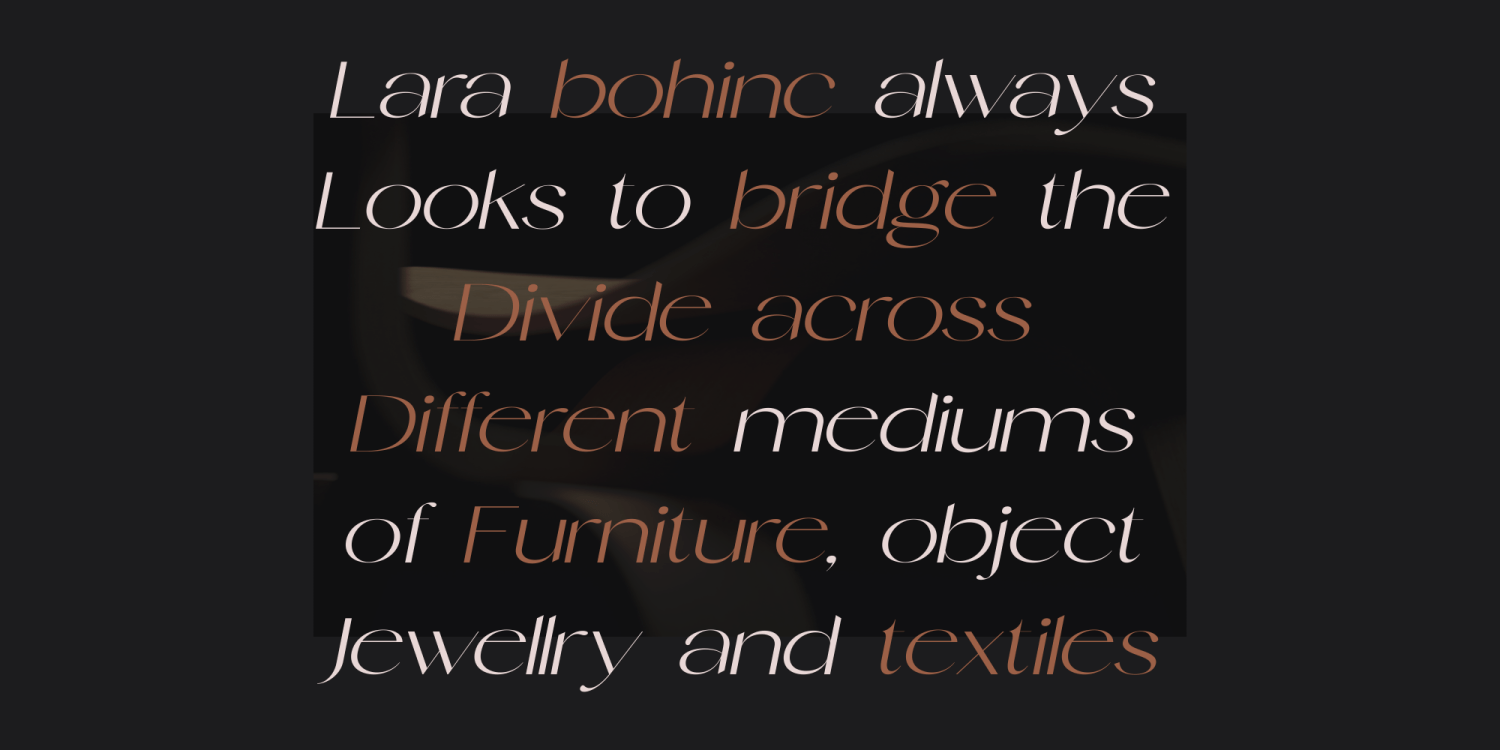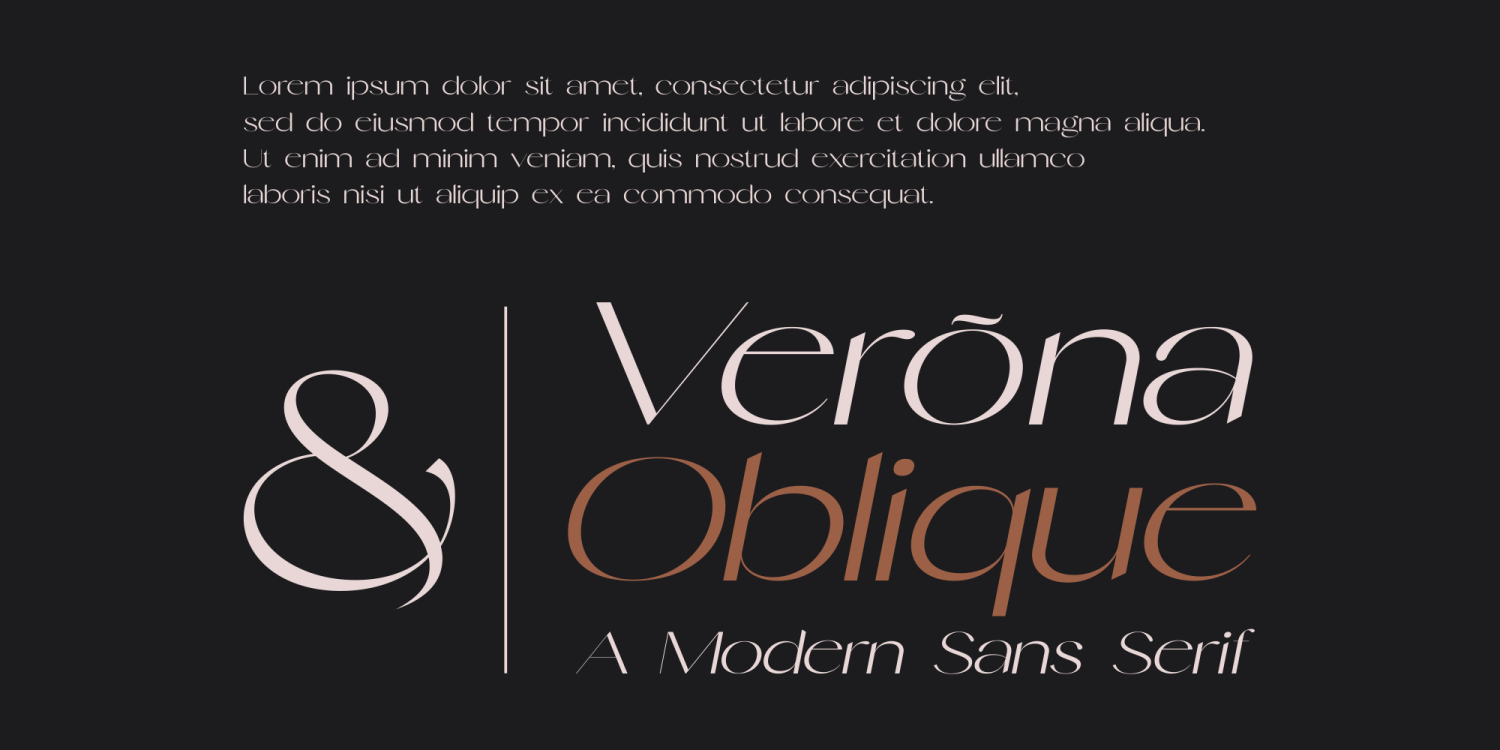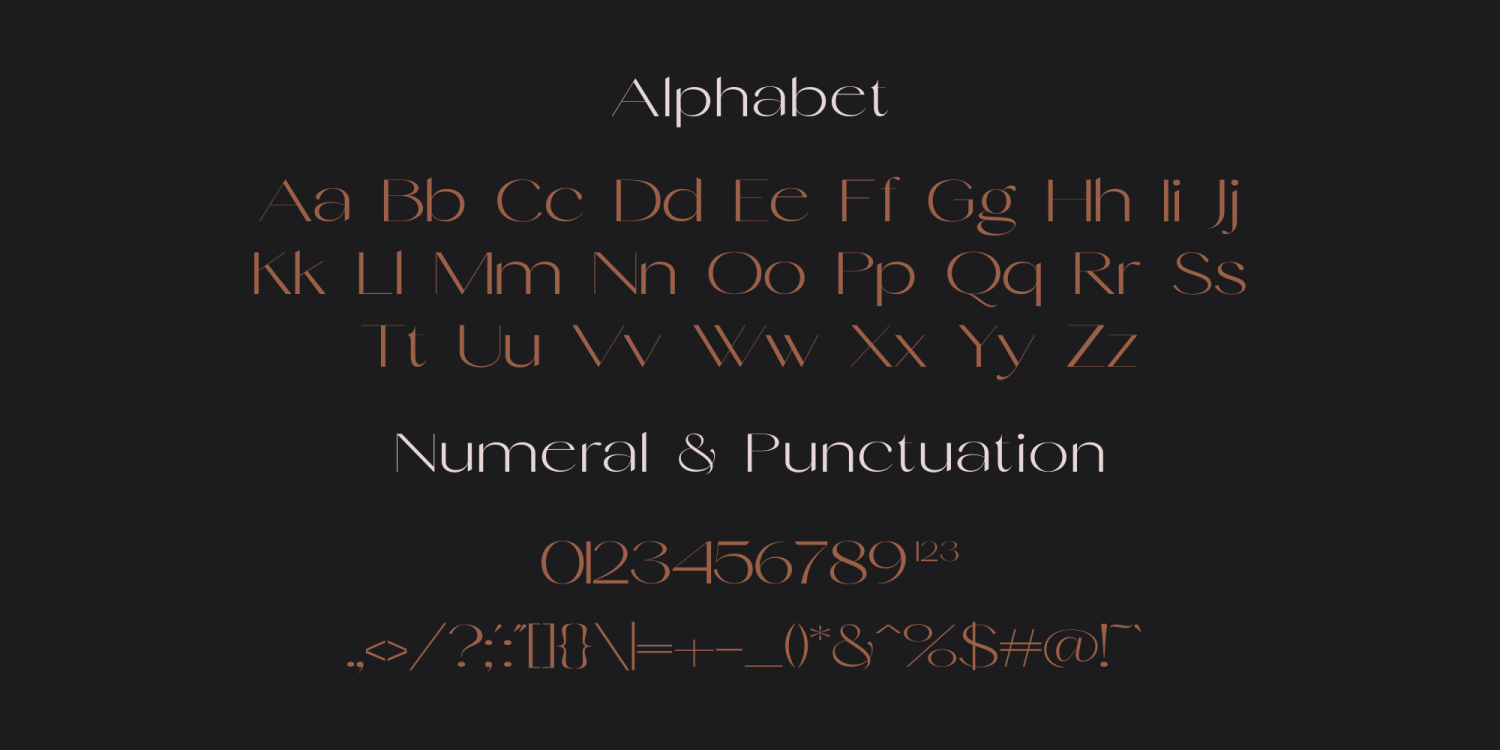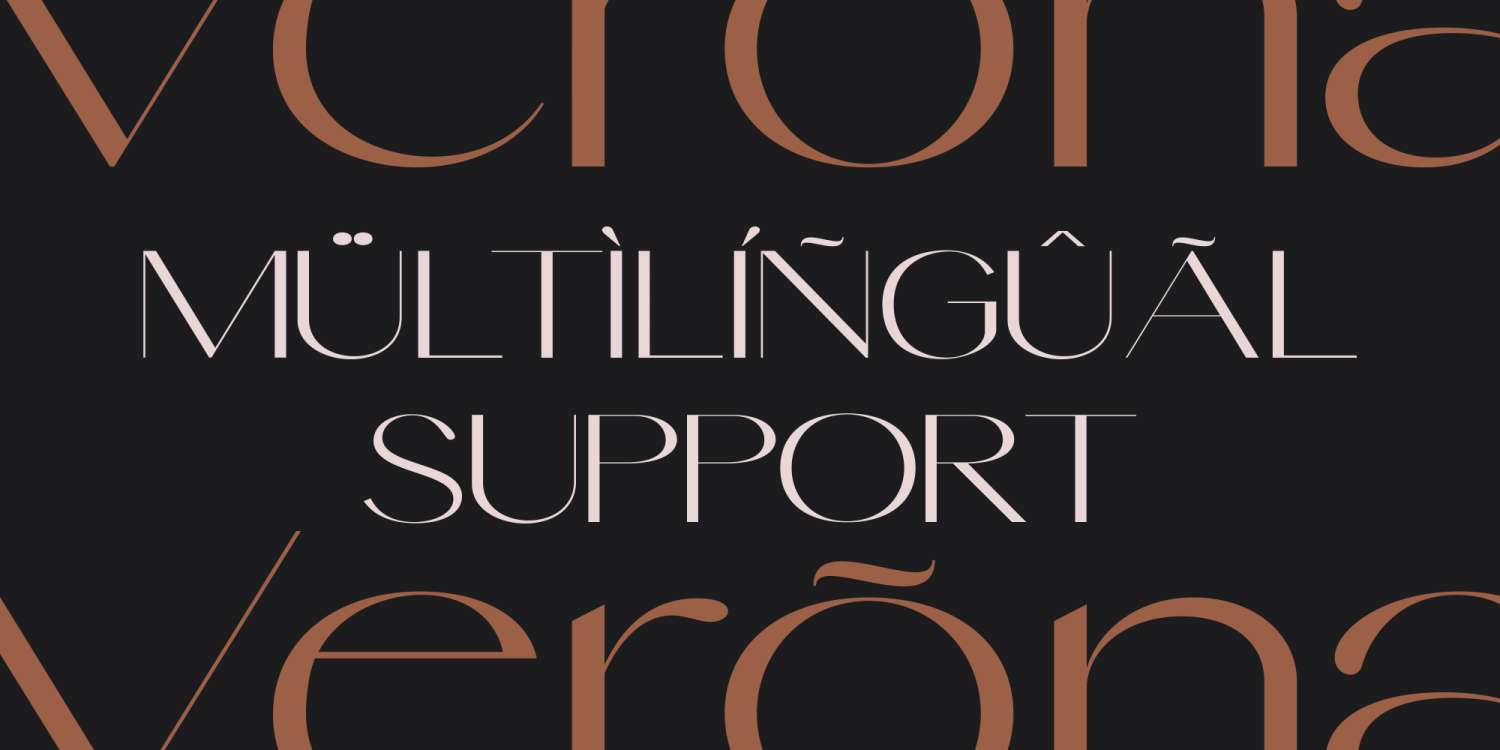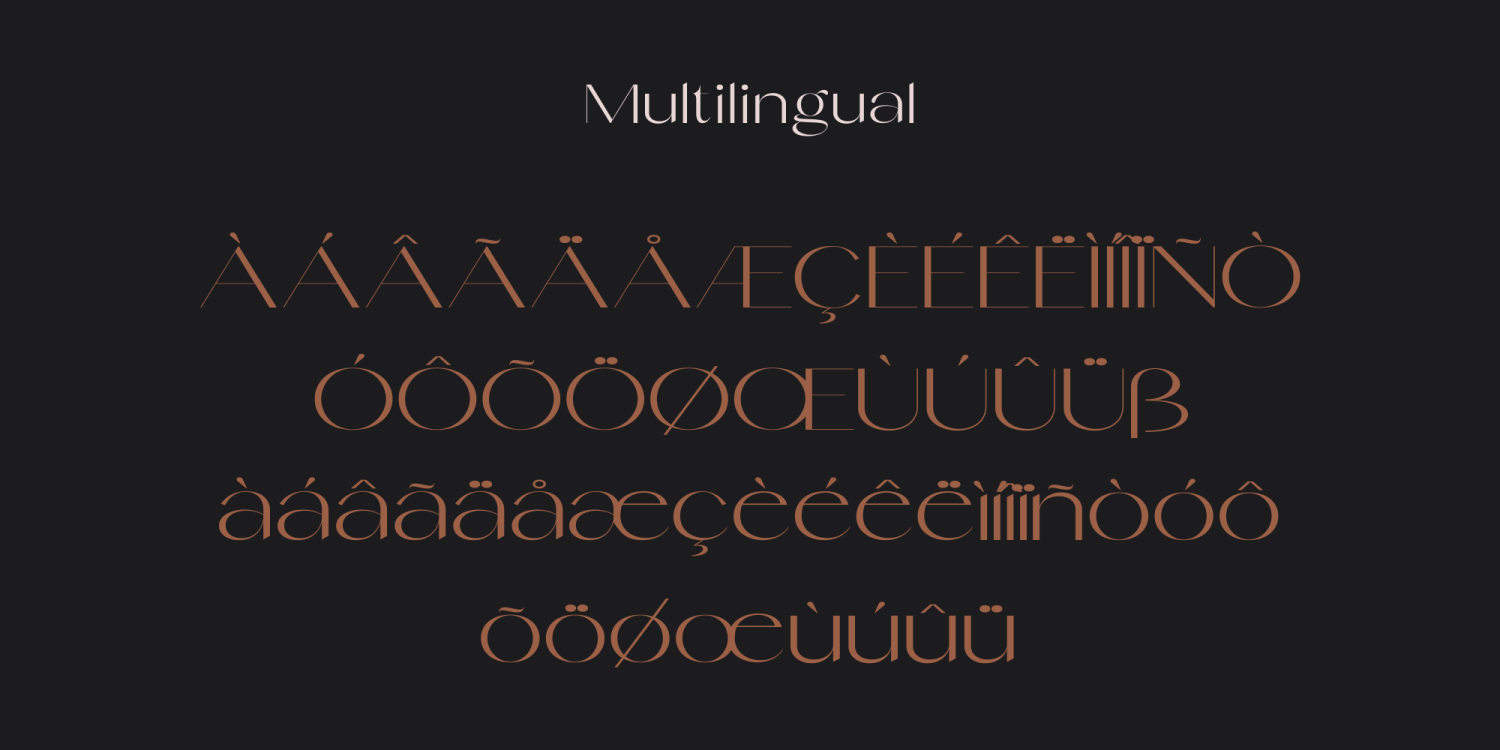
Verona
Buy NowIntroducing The Verona font is a sophisticated typeface that offers two distinct styles: Regular and Italic. Designed with an elegant minimalist approach and high contrast, it embodies a timeless aesthetic that exudes refinement and clarity. The graceful lines and balanced proportions of Verona make it an ideal choice for a variety of applications, including skincare branding, jewelry design, cosmetics packaging, and high-fashion posters. Its versatility and modern elegance ensure that it elevates any project with a touch of luxury and sophistication.